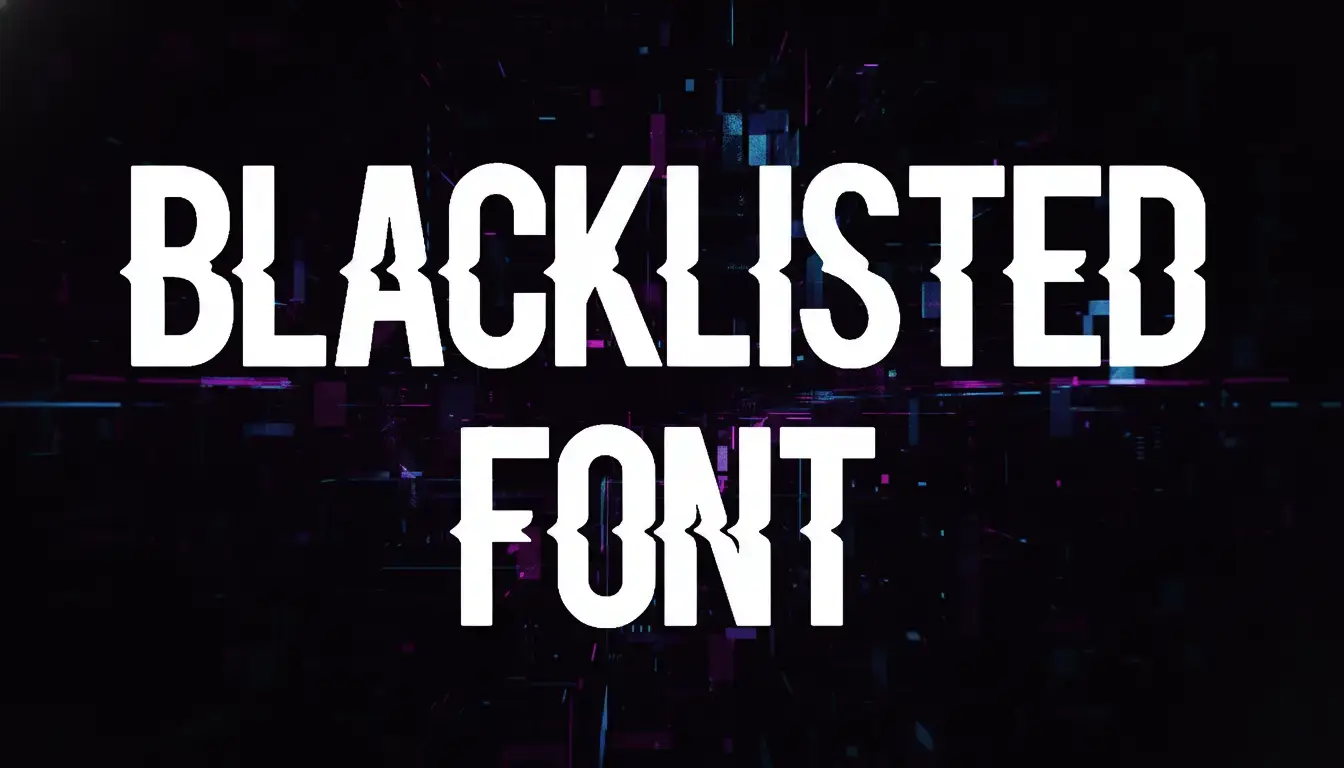
Blacklisted Font
Blacklisted is a fancy font. Bold and full of character, it's built to stand out rather than blend in. You can download it for free and test it with your own words in the preview above.
What You Can Type With Blacklisted
Blacklisted covers the full alphabet in upper and lowercase, plus all ten numbers, so you can set names, dates and prices without switching fonts. Everyday marks like &, !, ? and @ are there too. There are no accented letters like é or ñ, so it's best kept to English text.
Where Blacklisted Works Best
Blacklisted is a natural fit for posters, logos and eye-catching headlines. Use it for one standout word or headline and let simpler fonts handle the rest.
Does Blacklisted support accented letters?
No. Blacklisted has no accented letters such as é, ñ or ü, so it's best for English text.